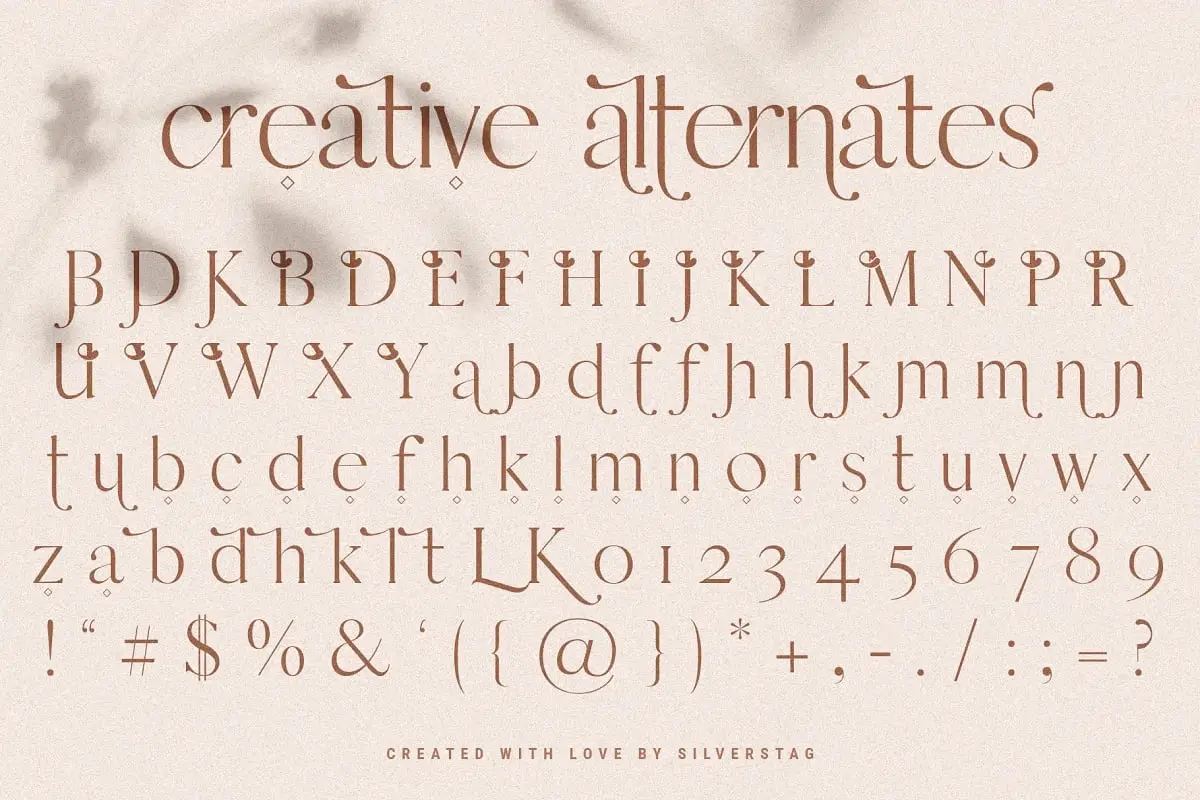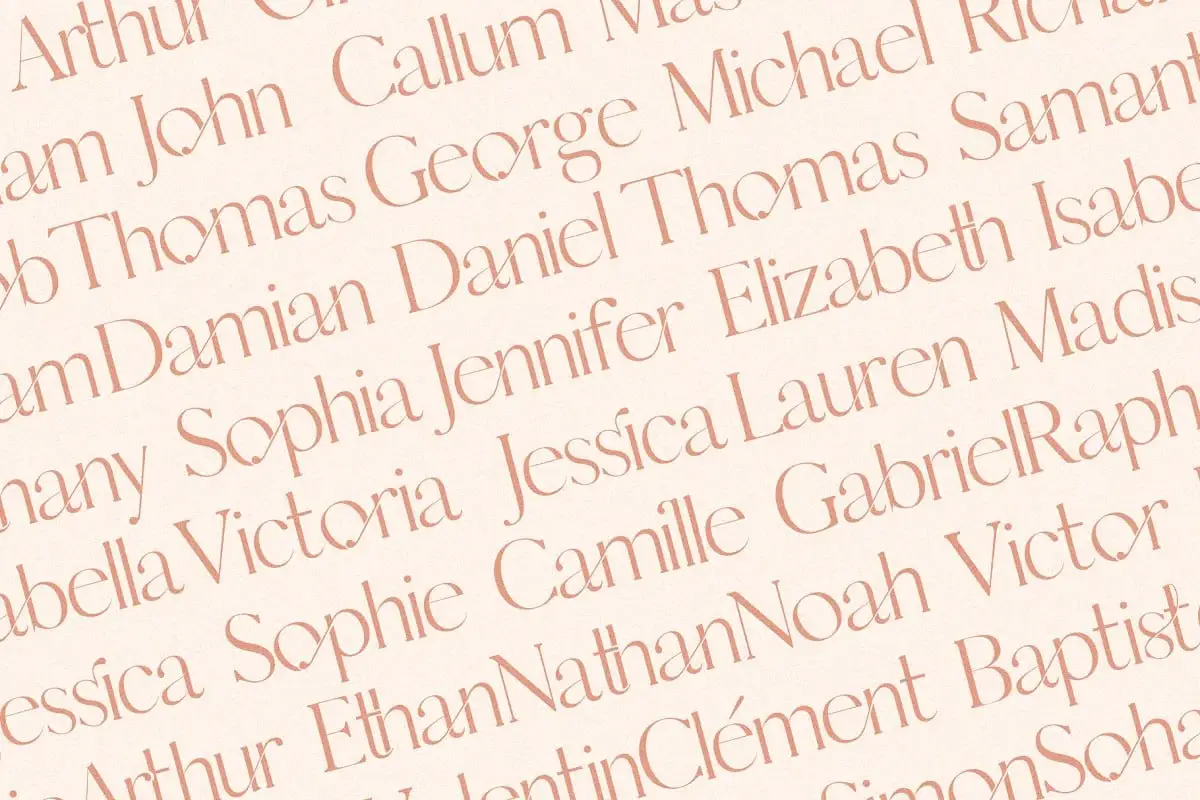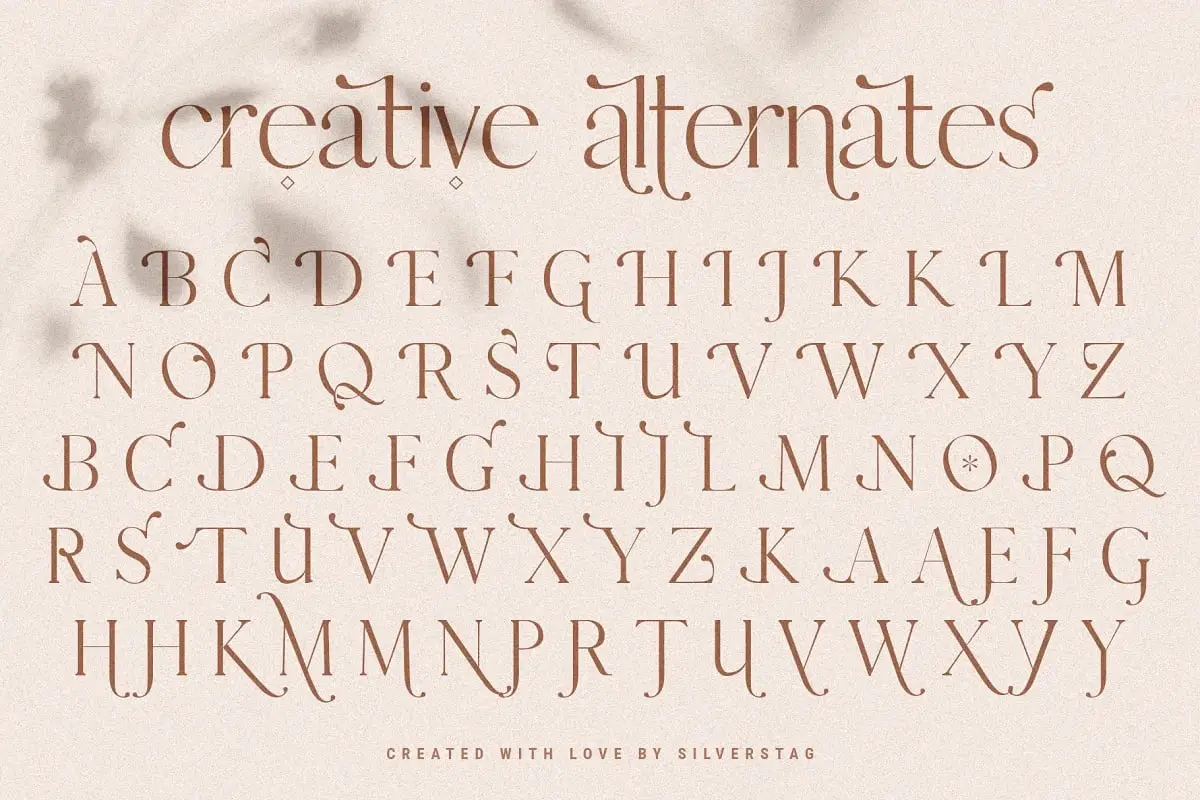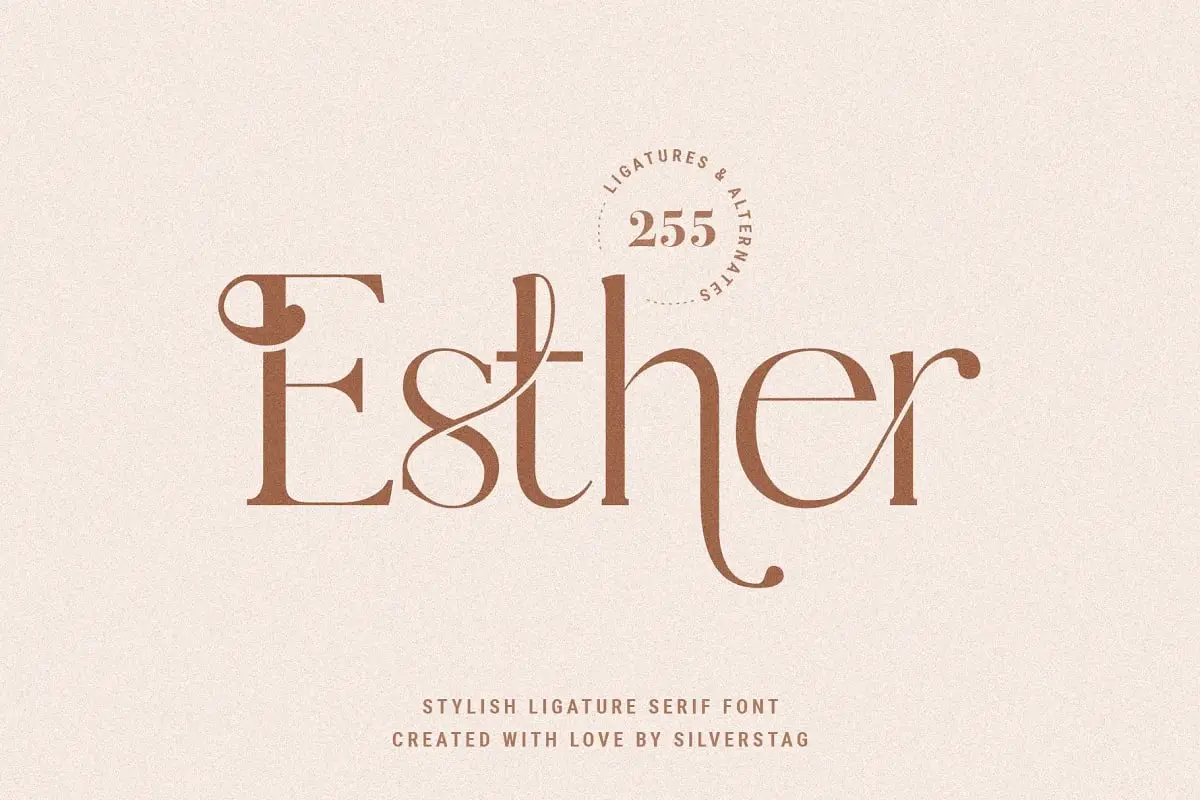
Silverstag-Esther (Stylish Ligature Serif Font)
Introducing Silverstag-Esther, a stylish ligature serif font designed to elevate your creative projects. This font features elegant curves and sophisticated ligatures, making it perfect for branding, logos, and both print and digital applications.
• Styles: Ligature Serif
• Ideal for creating elegant logos and branding materials.
• Perfect for invitations, greeting cards, and other print designs.
• Use in web design for a sophisticated touch to your online presence.